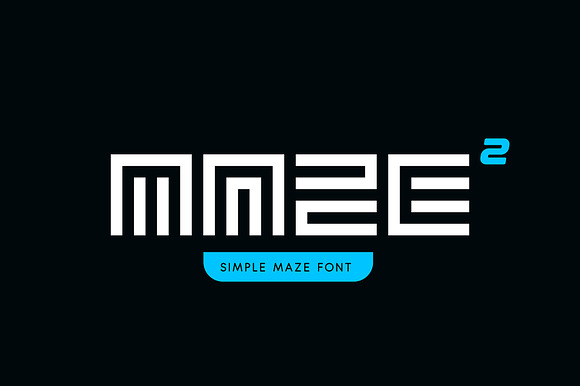
Simple Maze Font
Simple Maze Font by artyway is a font selected for branding, posters, packaging, typography.
Simple Maze Font by artyway fits naturally into Branding, posters, packaging, typography.